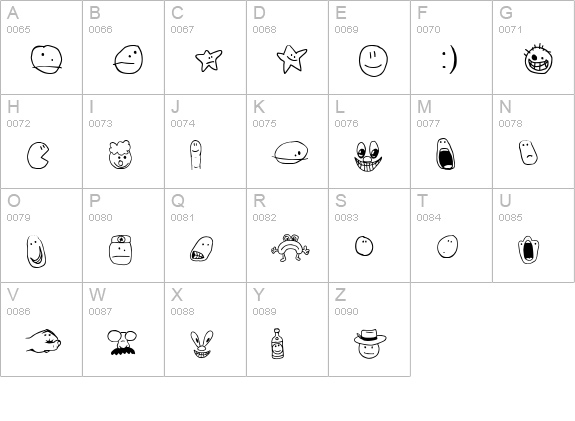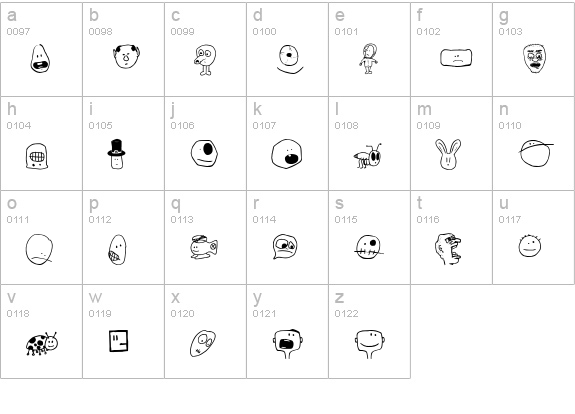
Tombats Smilies font is a delightful and whimsical typeface that will bring a smile to your face. With its charming and expressive smiley face characters, this font adds a touch of playfulness to any design project. What makes Tombats Smilies font even more special is that it is completely free! That's right, you can enjoy this delightful font without spending a dime. Whether you're creating a fun birthday card, a lively poster, or a cheerful social media graphic, Tombats Smilies font is the perfect choice to add a dose of happiness. Downloading Tombats Smilies font is a breeze. It is freely available to download at FontsMarket.com, a reputable online font marketplace. Simply visit the website, search for Tombats Smilies font, and with a few clicks, you'll have this delightful font ready to use in your creative endeavors. The characters in Tombats Smilies font are beautifully designed, each with their own unique expression, capturing a wide range of emotions. From big grins to winks and everything in between, this font allows you to effortlessly convey your message with a touch of joy. The versatility of Tombats Smilies font is another reason to love it. It works well in both digital and print designs, making it suitable for a variety of projects. Whether you're designing a website, creating a logo, or crafting a personalized greeting card, Tombats Smilies font will add a playful and engaging element to your work. So why wait? Download Tombats Smilies font today and let your creativity shine with a touch of free, smile-inducing typography. Remember, it's freely available at FontsMarket.com, so you can enjoy the delightful characters of Tombats Smilies font without breaking the bank. Spread the joy and let the smiles begin!